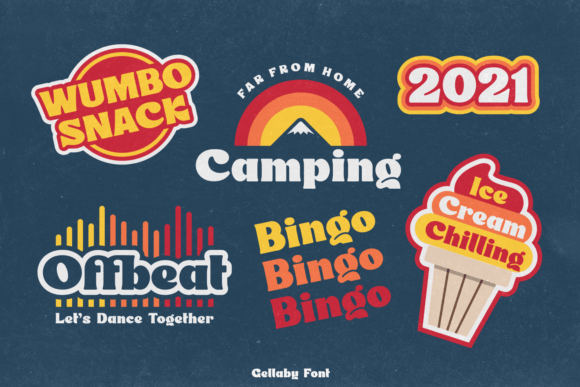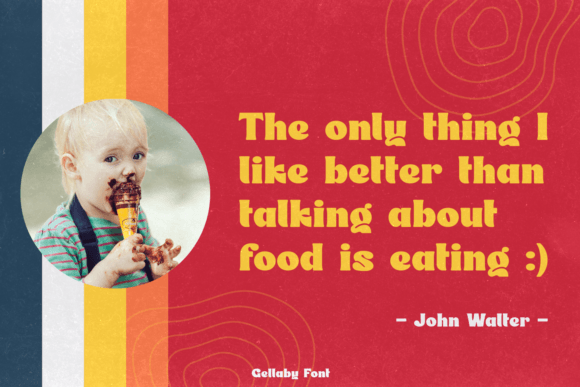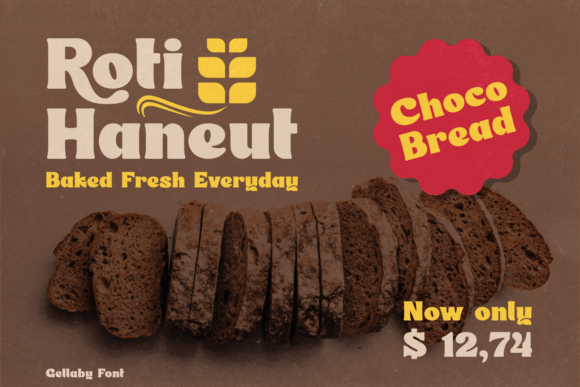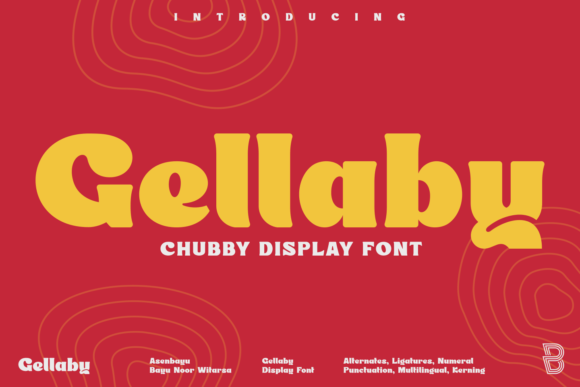
Introduction to Gellaby Font
Gellaby is a bold semi-serif display font with a unique and chubby shape.
You can use this font in retro, vintage, modern and playful designs This font is perfect for a variety of projects, such as branding, product label, poster displays, logo designs, magazines, headlines, stickers, and more.